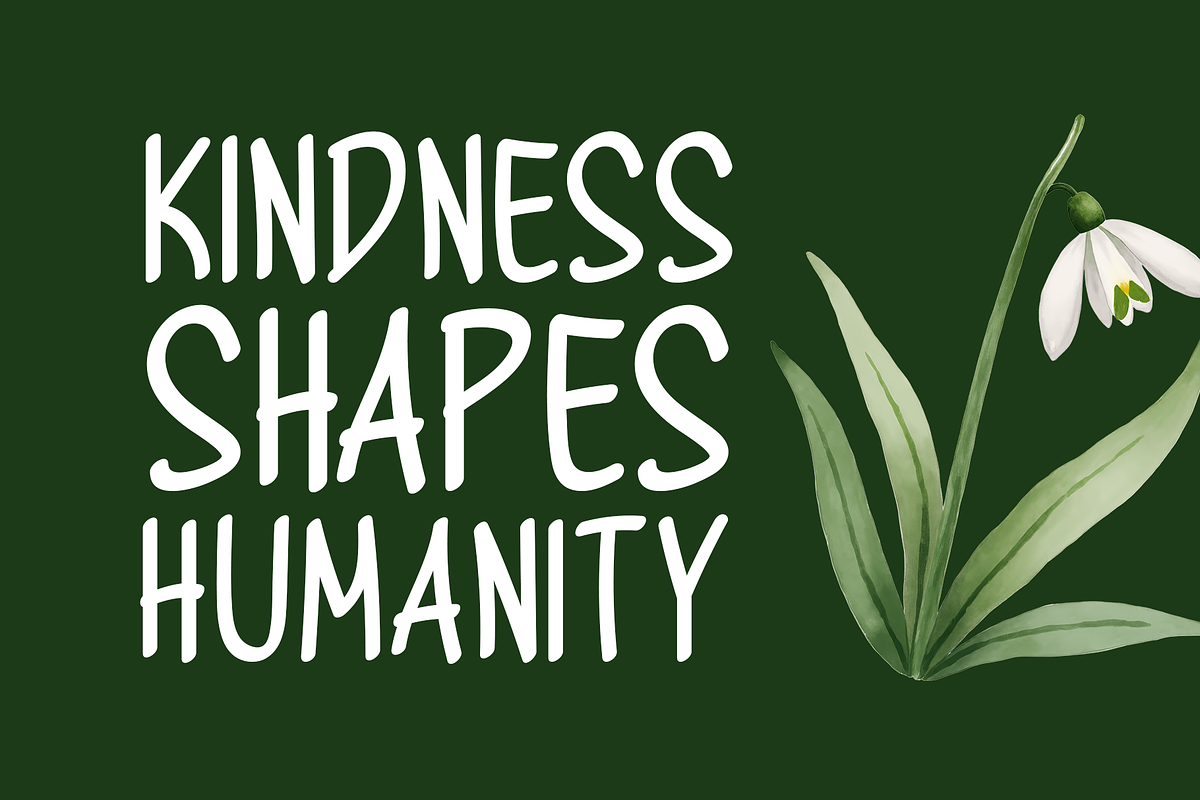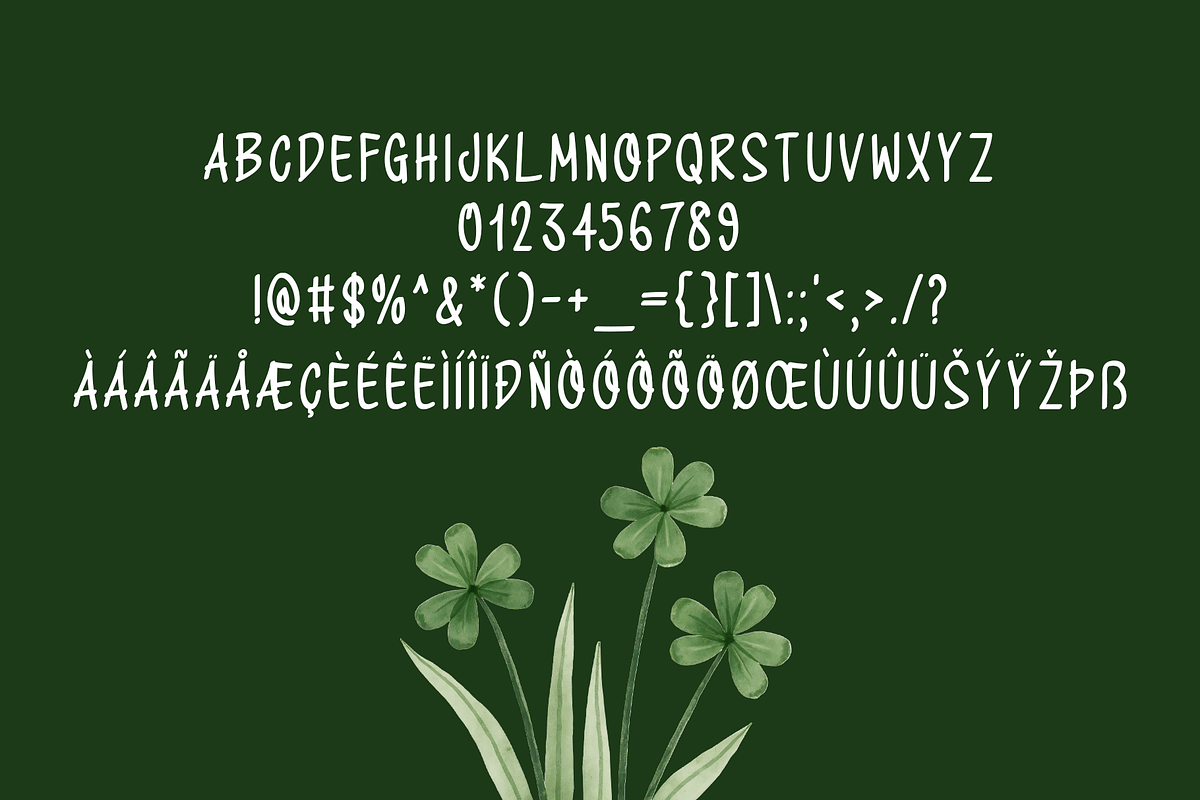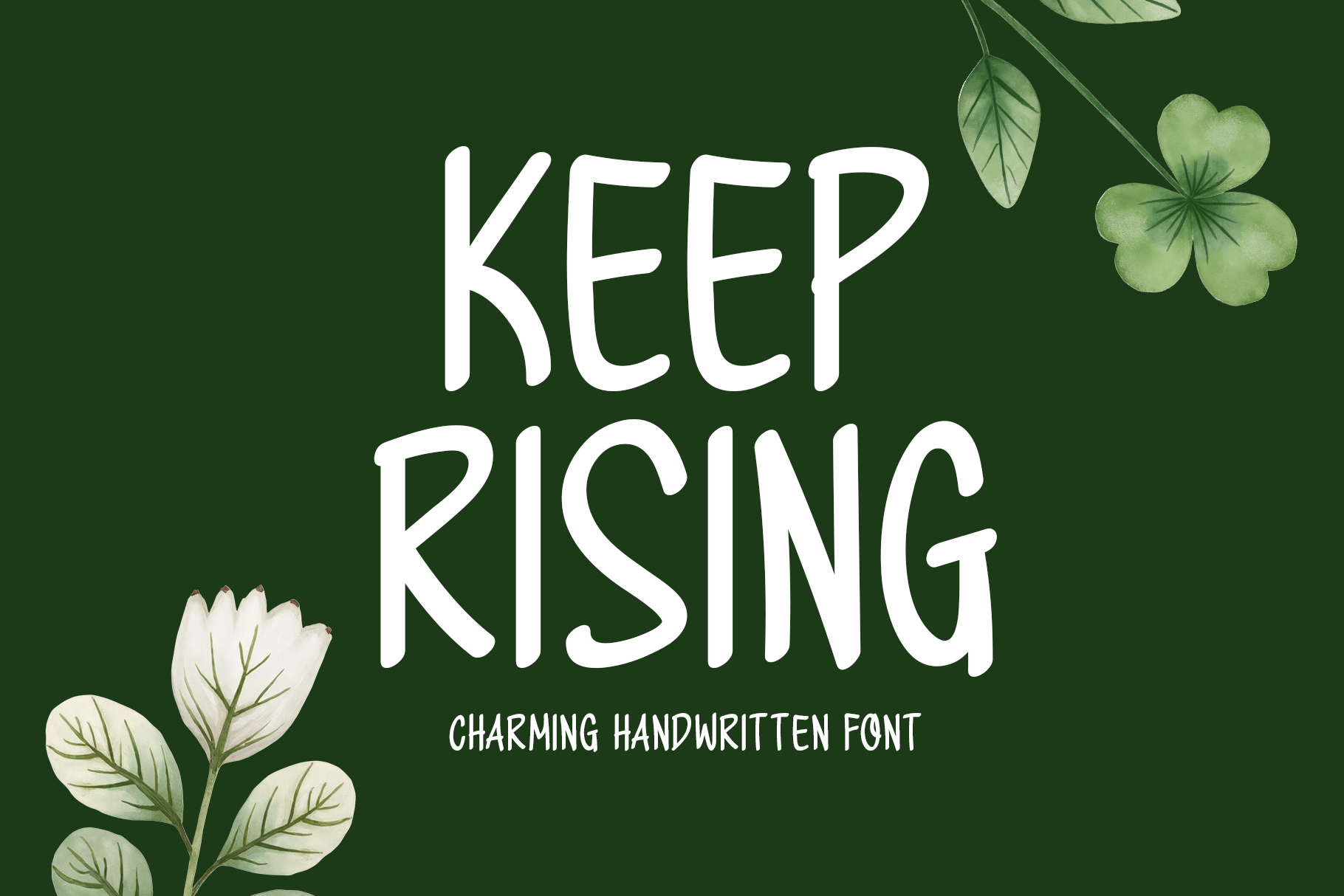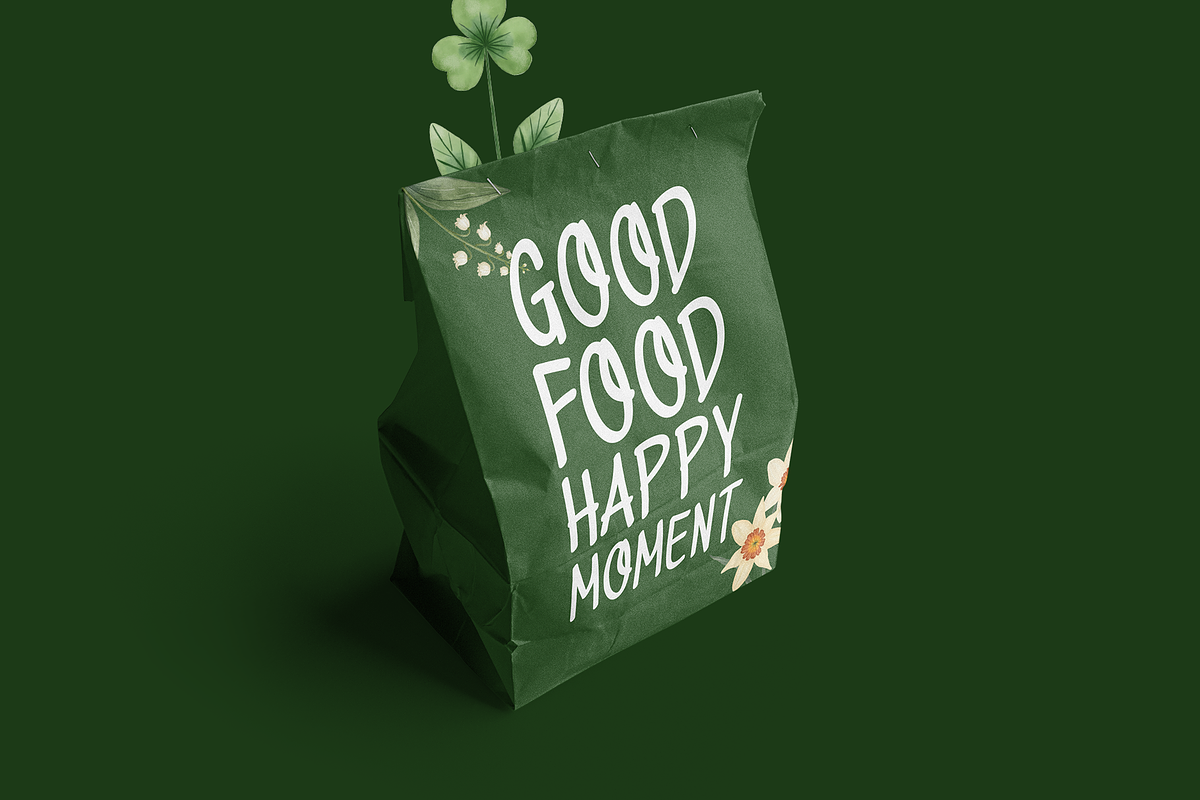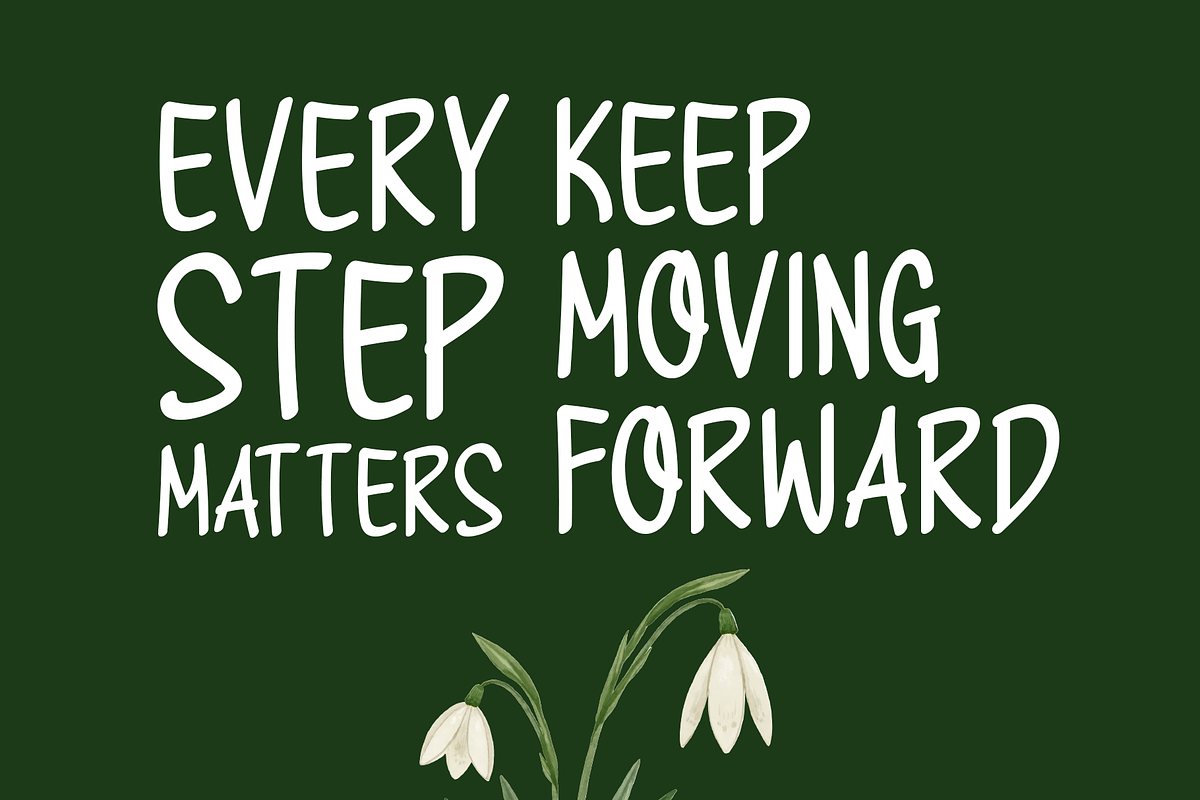
Keep Rising Typeface
Introducing Keep Rising!
Keep Rising is a smooth handwritten font designed with tall, expressive strokes that give each letter a natural flow. Its relaxed and uplifting style makes it an excellent choice for inspiring quotes, branding materials, posters, t-shirt designs, social media content, and various creative layouts. Keep Rising brings a warm, encouraging tone to every project, helping your message stand out with clarity and charm.
Includes a range of multilingual support